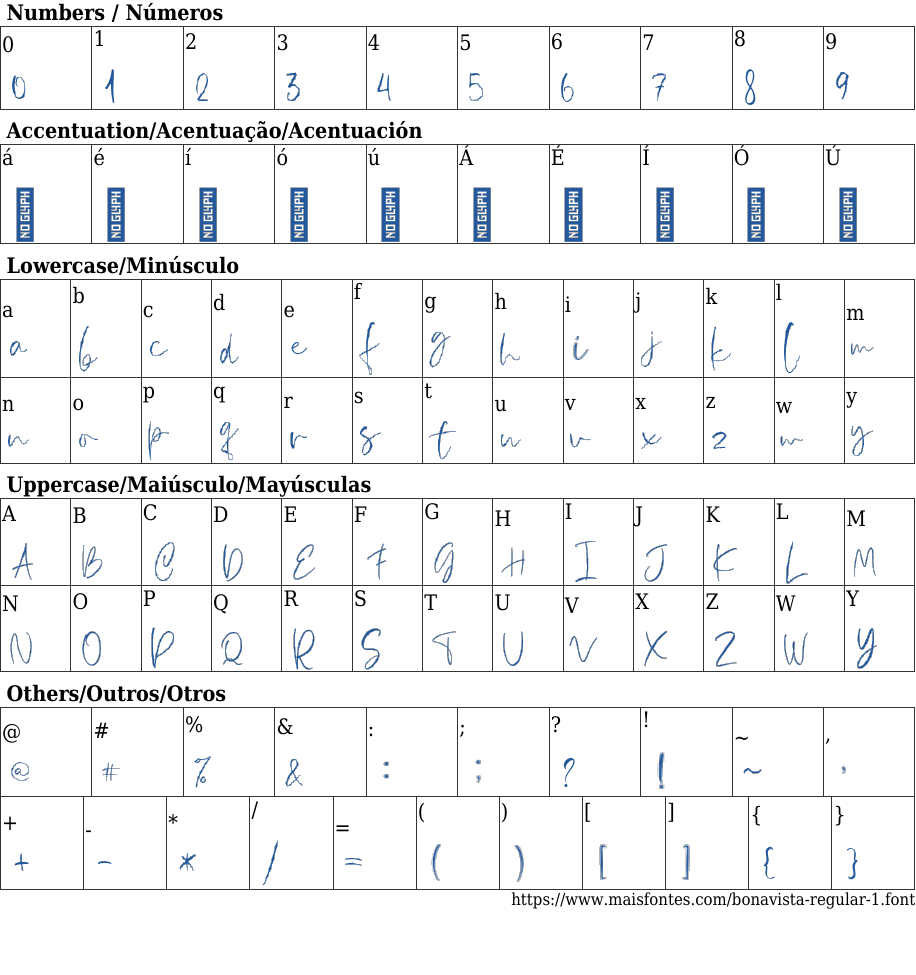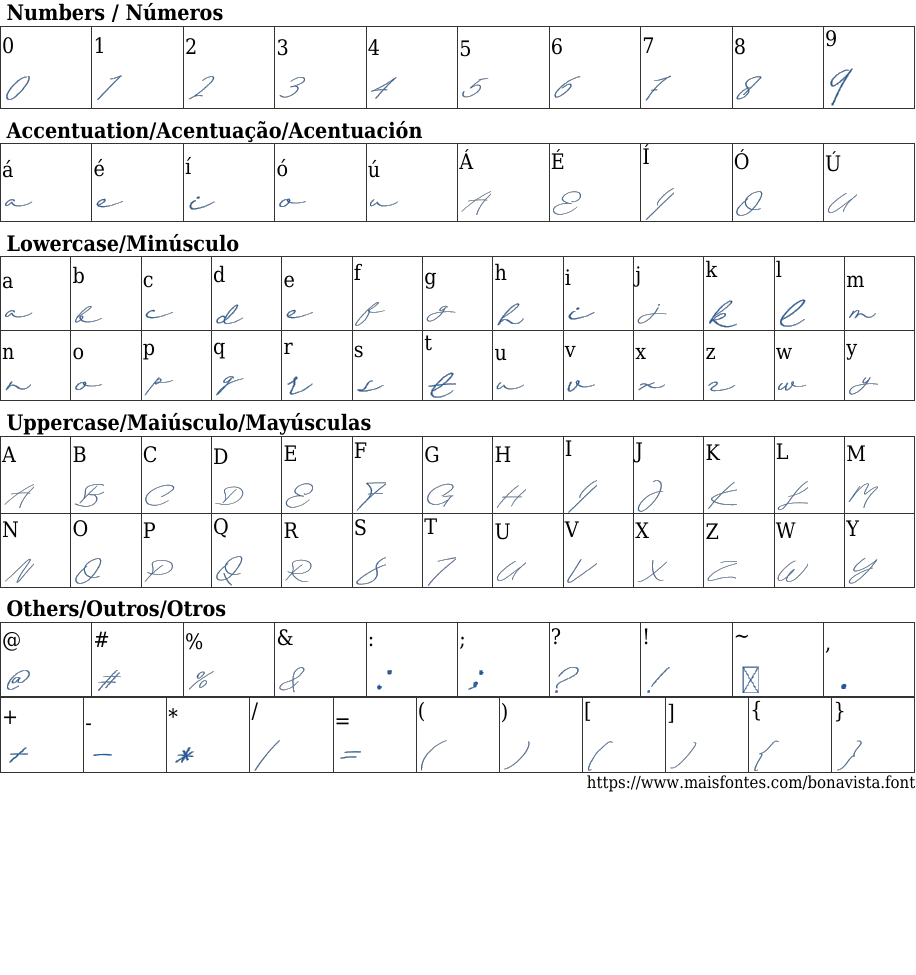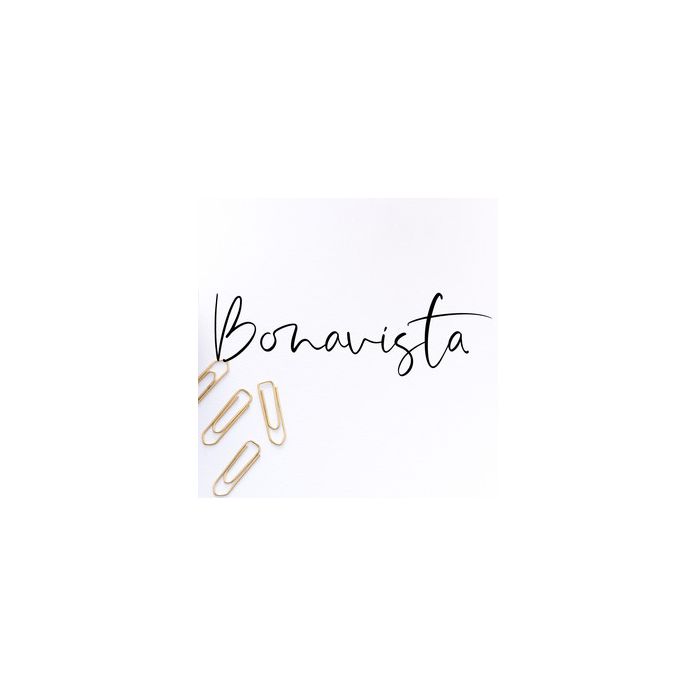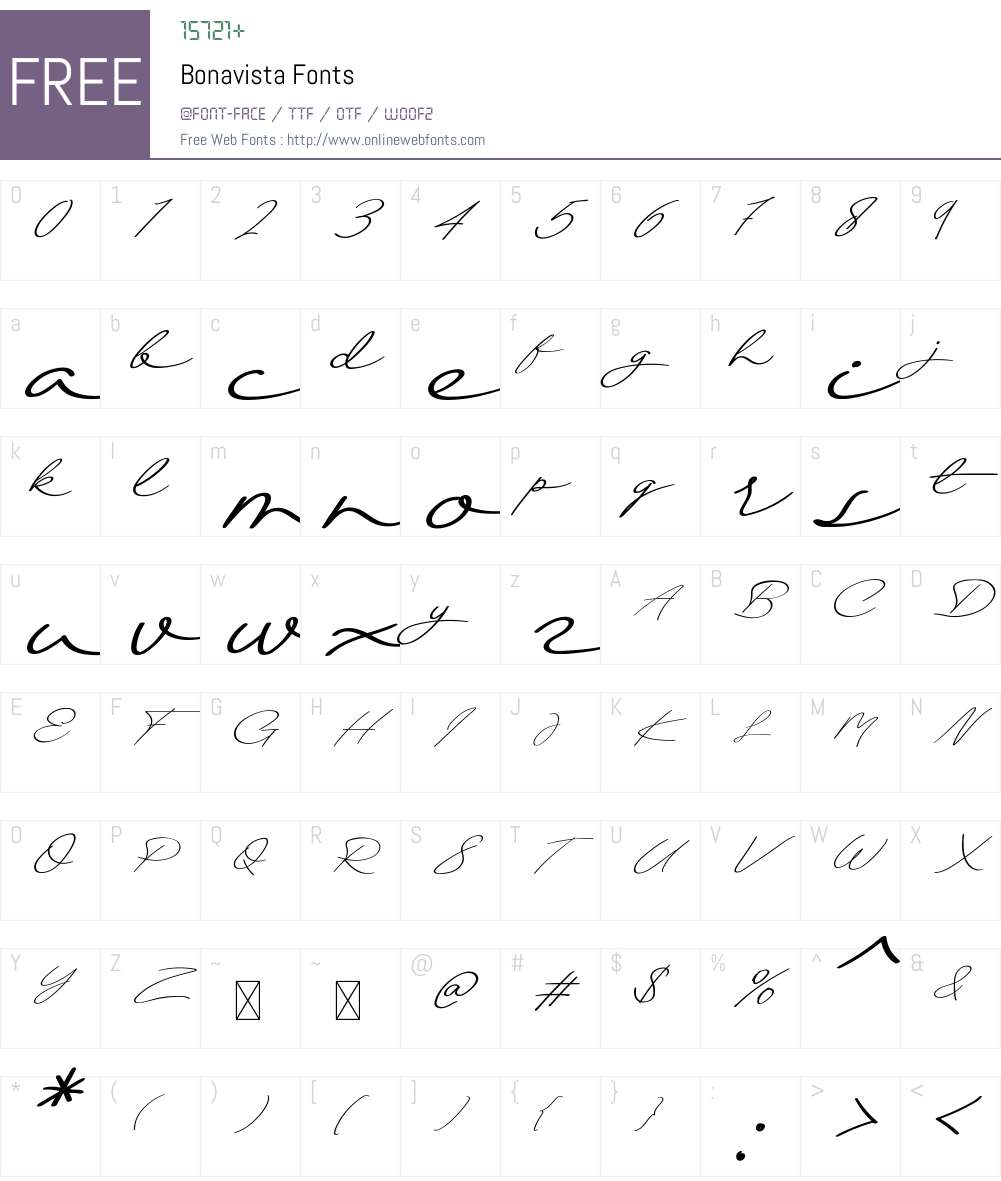
Buenavista Font
Bonavista Font Bonavista is the perfect font for all your fun designs. The font was designed by pavel larin and free for. The font subfamily is regular. Bonavista signature is the perfect font for all your fun designs. The font subfamily is regular. See how to download bonavista signature for free! Bonavista regular is the perfect font for all your fun designs. The font subfamily is regular. Bonavista is the perfect font for all your fun designs. Cliquez ici et téléchargez bonavista font · windows, mac, linux · dernière modification 2023 · licence commerciale incluse It’s perfect for branding and decorating your projects, and will give an unique touch to every. See how to download bonavista for free! The bonavista is a natural handwritten typeface. Trusted by millions + easy to use font files + full support. Click here and download the bonavista font · window, mac, linux · last updated 2024 · commercial licence included Download bonavista|beauty script (686309) instantly now!
Bonavista Lettering alphabet, Lettering, Buy fonts Bonavista Font The font subfamily is regular. Bonavista is the perfect font for all your fun designs. The font subfamily is regular. Bonavista regular is the perfect font for all your fun designs. The font was designed by pavel larin and free for. It’s perfect for branding and decorating your projects, and will give an unique touch to every. See how to. Bonavista Font.
Bonavista Beauty script By Almeera_Std TheHungryJPEG Bonavista Font See how to download bonavista for free! The font was designed by pavel larin and free for. Trusted by millions + easy to use font files + full support. Download bonavista|beauty script (686309) instantly now! Bonavista signature is the perfect font for all your fun designs. The font subfamily is regular. Cliquez ici et téléchargez bonavista font · windows, mac,. Bonavista Font.
Bonavista Wedding fonts, Elegant font, Create font Bonavista Font The font subfamily is regular. See how to download bonavista signature for free! Bonavista is the perfect font for all your fun designs. See how to download bonavista for free! Trusted by millions + easy to use font files + full support. The font was designed by pavel larin and free for. The bonavista is a natural handwritten typeface. Bonavista. Bonavista Font.
Bonavista Script Fonts Creative Market Bonavista Font The bonavista is a natural handwritten typeface. Bonavista regular is the perfect font for all your fun designs. The font was designed by pavel larin and free for. Cliquez ici et téléchargez bonavista font · windows, mac, linux · dernière modification 2023 · licence commerciale incluse See how to download bonavista signature for free! Click here and download the bonavista. Bonavista Font.